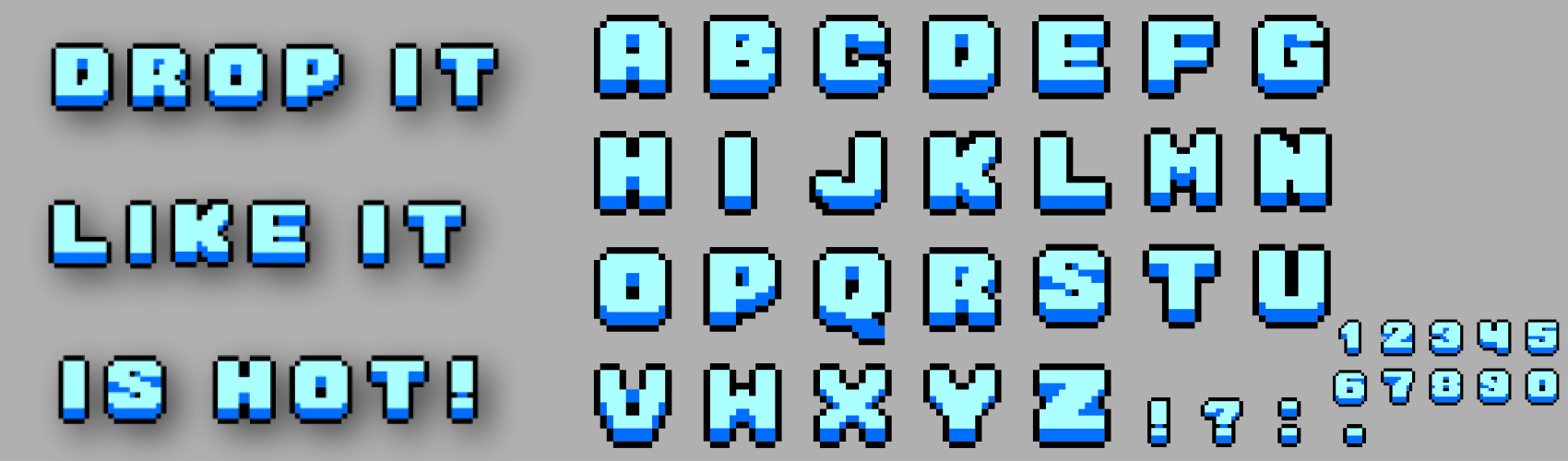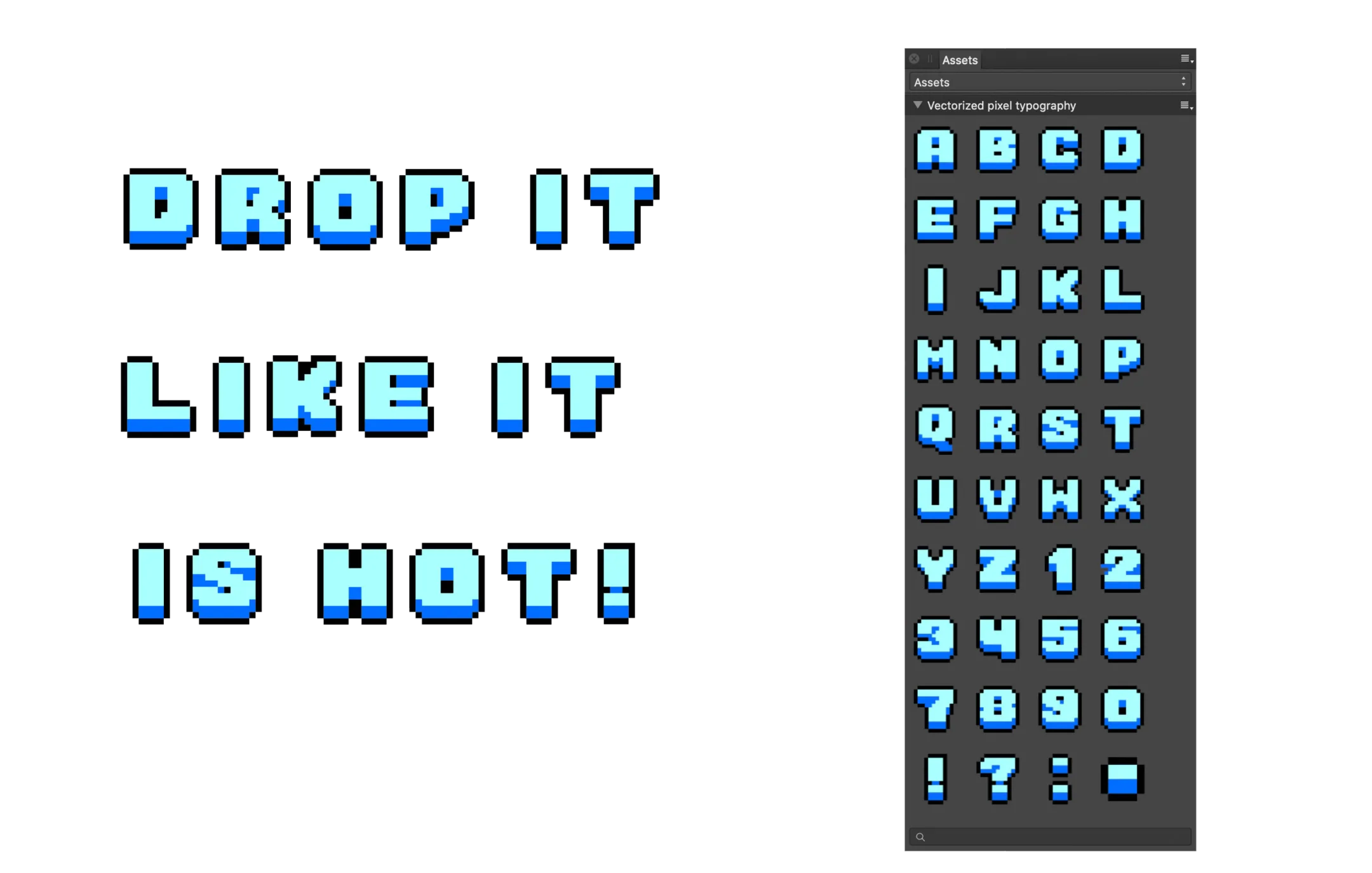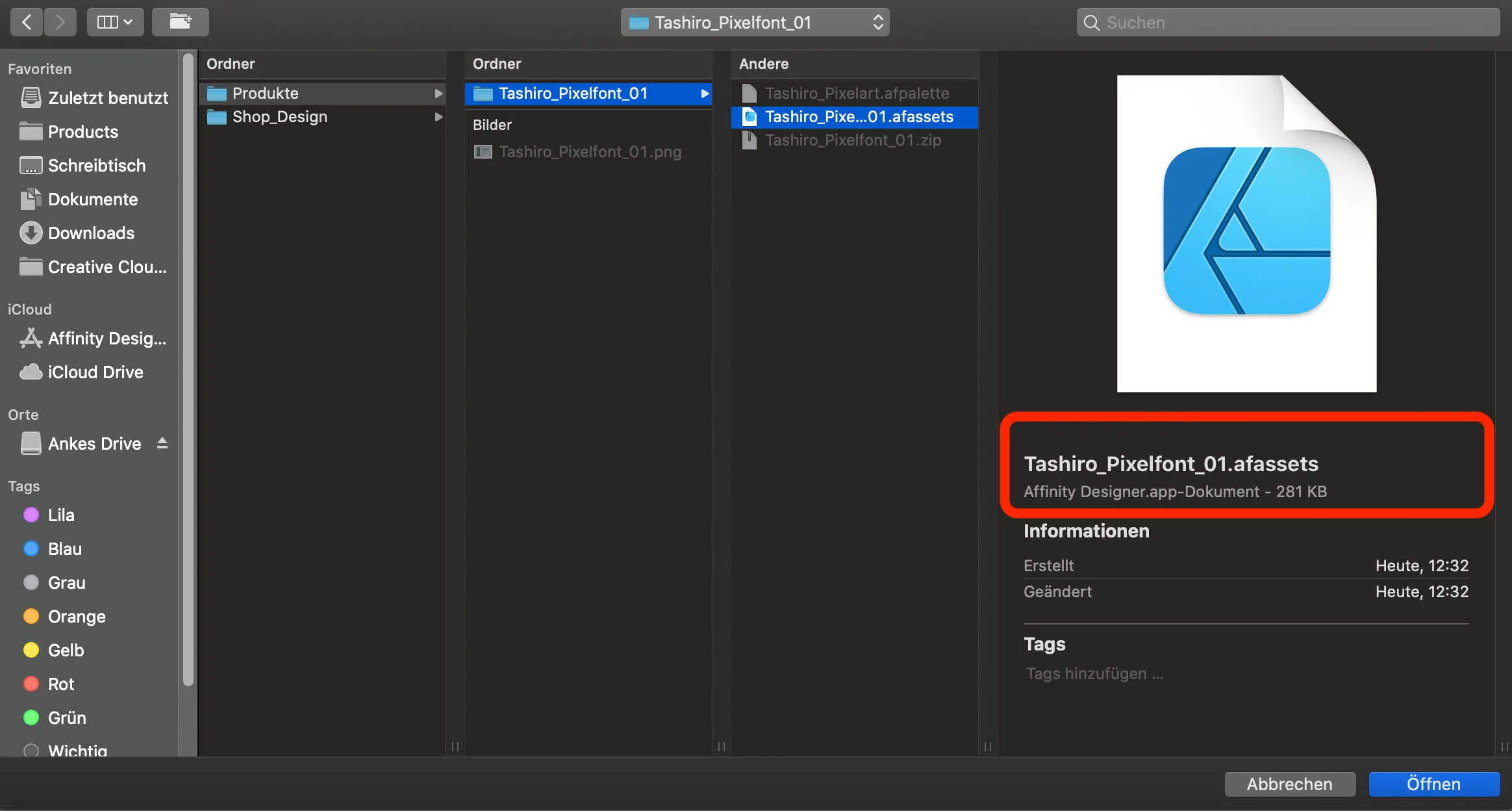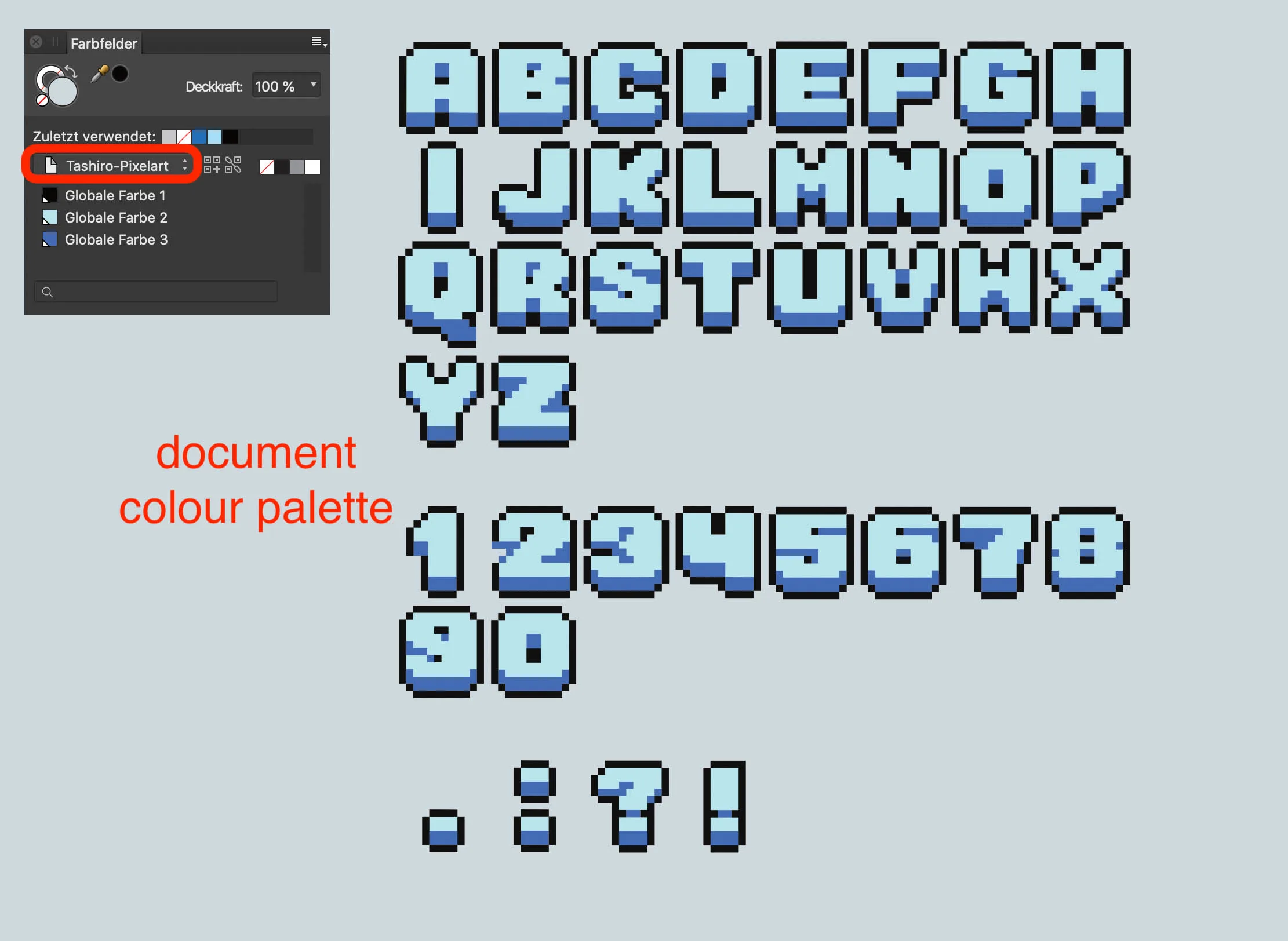
PIXEL FONT VECTORISED IN 8 BIT LOOK
• 26 vectorised capital letters in 8 bit pixel look (no ä, ö, ü and no special characters)
• 10 vectorised numbers 0-9
• 4 vectorised punctuation marks
• 40 vectorised characters total